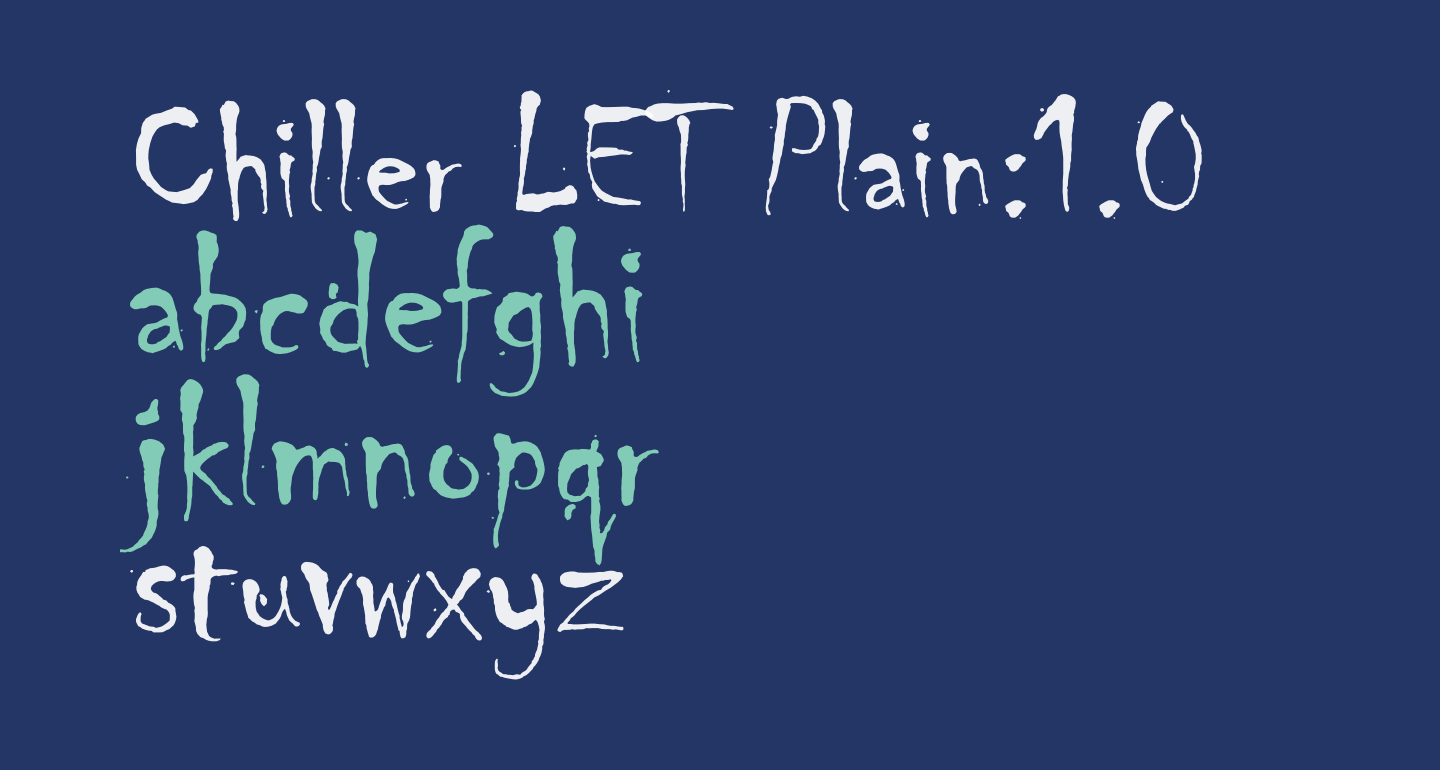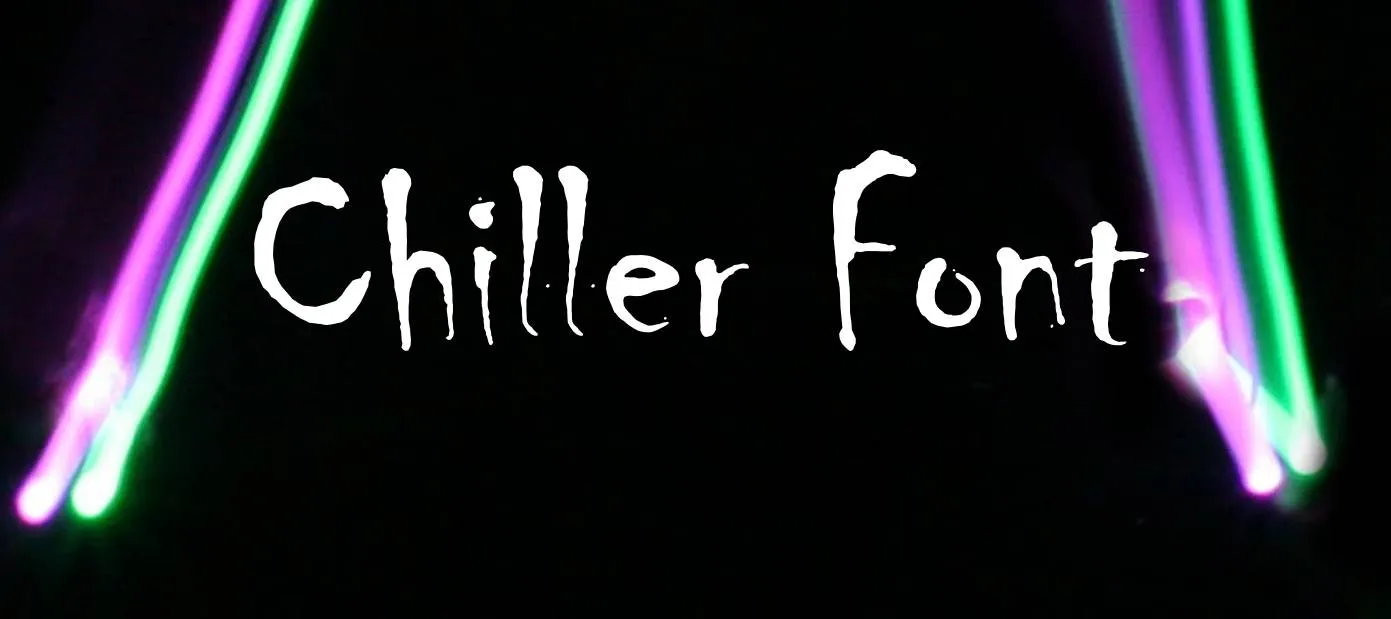
Chiller Font Meaning . It is a font that looks like it was written with a brush or a marker. Chiller is the work of british designer andrew smith, a chaotic, reckless fun font. It was inspired by the horror movie posters of the 1980s, with their dripping fonts and eerie atmosphere. Although the ink blots and stray strokes might look. Chiller™ is available in opentype,. It is the work of a british designer named andrew smith. Chiller is a dynamic and bold display typeface with a modern style. In 1995, itc released andrew’s work in the market. It has ink blots and stray strokes that give it a. Chiller is an american cable and satellite television channel that is specializing in horror, thriller and suspense programming. The current chiller logo in use was. Today, we will talk about a chaotic, reckless font, the chiller font. Chiller font was designed by andrew smith in 1995.
It was inspired by the horror movie posters of the 1980s, with their dripping fonts and eerie atmosphere. Chiller font was designed by andrew smith in 1995. Chiller™ is available in opentype,. In 1995, itc released andrew’s work in the market. It has ink blots and stray strokes that give it a. Today, we will talk about a chaotic, reckless font, the chiller font. Chiller is a dynamic and bold display typeface with a modern style. Chiller is an american cable and satellite television channel that is specializing in horror, thriller and suspense programming. Chiller is the work of british designer andrew smith, a chaotic, reckless fun font. It is a font that looks like it was written with a brush or a marker.
Chiller Font Meaning Chiller is a dynamic and bold display typeface with a modern style. The current chiller logo in use was. Although the ink blots and stray strokes might look. Chiller™ is available in opentype,. It has ink blots and stray strokes that give it a. Chiller is an american cable and satellite television channel that is specializing in horror, thriller and suspense programming. Chiller font was designed by andrew smith in 1995. Chiller is the work of british designer andrew smith, a chaotic, reckless fun font. Chiller is a dynamic and bold display typeface with a modern style. It is a font that looks like it was written with a brush or a marker. It was inspired by the horror movie posters of the 1980s, with their dripping fonts and eerie atmosphere. Today, we will talk about a chaotic, reckless font, the chiller font. In 1995, itc released andrew’s work in the market. It is the work of a british designer named andrew smith.
Burning Chiller Font All Free Fonts Chiller Font Meaning Chiller is the work of british designer andrew smith, a chaotic, reckless fun font. Chiller font was designed by andrew smith in 1995. Chiller™ is available in opentype,. The current chiller logo in use was. In 1995, itc released andrew’s work in the market. Although the ink blots and stray strokes might look. It has ink blots and stray strokes. Chiller Font Meaning.
Chillerz Font Chiller Font Meaning In 1995, itc released andrew’s work in the market. It is a font that looks like it was written with a brush or a marker. Today, we will talk about a chaotic, reckless font, the chiller font. Chiller is the work of british designer andrew smith, a chaotic, reckless fun font. It has ink blots and stray strokes that give. Chiller Font Meaning.
Chiller font Chiller Font Meaning In 1995, itc released andrew’s work in the market. It is the work of a british designer named andrew smith. It is a font that looks like it was written with a brush or a marker. It was inspired by the horror movie posters of the 1980s, with their dripping fonts and eerie atmosphere. The current chiller logo in use. Chiller Font Meaning.
Chiller Font Download Free Font Chiller Font Meaning Although the ink blots and stray strokes might look. Chiller is an american cable and satellite television channel that is specializing in horror, thriller and suspense programming. It was inspired by the horror movie posters of the 1980s, with their dripping fonts and eerie atmosphere. It has ink blots and stray strokes that give it a. In 1995, itc released. Chiller Font Meaning.
Download free Chiller font, free CHILLER.ttf Regular font for Windows Chiller Font Meaning It is the work of a british designer named andrew smith. Chiller font was designed by andrew smith in 1995. It has ink blots and stray strokes that give it a. Although the ink blots and stray strokes might look. Chiller is a dynamic and bold display typeface with a modern style. The current chiller logo in use was. It. Chiller Font Meaning.
Chiller Font Download Fonts Park Chiller Font Meaning In 1995, itc released andrew’s work in the market. It is the work of a british designer named andrew smith. It was inspired by the horror movie posters of the 1980s, with their dripping fonts and eerie atmosphere. Today, we will talk about a chaotic, reckless font, the chiller font. Chiller font was designed by andrew smith in 1995. Chiller. Chiller Font Meaning.
Chiller Font » Fonts Max Chiller Font Meaning It is a font that looks like it was written with a brush or a marker. Chiller is the work of british designer andrew smith, a chaotic, reckless fun font. It has ink blots and stray strokes that give it a. The current chiller logo in use was. Chiller font was designed by andrew smith in 1995. Chiller is a. Chiller Font Meaning.
Chiller Font Free Download Chiller Font Meaning It has ink blots and stray strokes that give it a. It is the work of a british designer named andrew smith. Chiller font was designed by andrew smith in 1995. The current chiller logo in use was. In 1995, itc released andrew’s work in the market. Chiller is the work of british designer andrew smith, a chaotic, reckless fun. Chiller Font Meaning.
Burning Chiller Font Dafont Free Chiller Font Meaning Chiller is a dynamic and bold display typeface with a modern style. Chiller font was designed by andrew smith in 1995. Chiller is the work of british designer andrew smith, a chaotic, reckless fun font. It is the work of a british designer named andrew smith. In 1995, itc released andrew’s work in the market. Chiller™ is available in opentype,.. Chiller Font Meaning.
Chiller Font Download Fonts Park Chiller Font Meaning It is a font that looks like it was written with a brush or a marker. It is the work of a british designer named andrew smith. Chiller font was designed by andrew smith in 1995. It was inspired by the horror movie posters of the 1980s, with their dripping fonts and eerie atmosphere. The current chiller logo in use. Chiller Font Meaning.